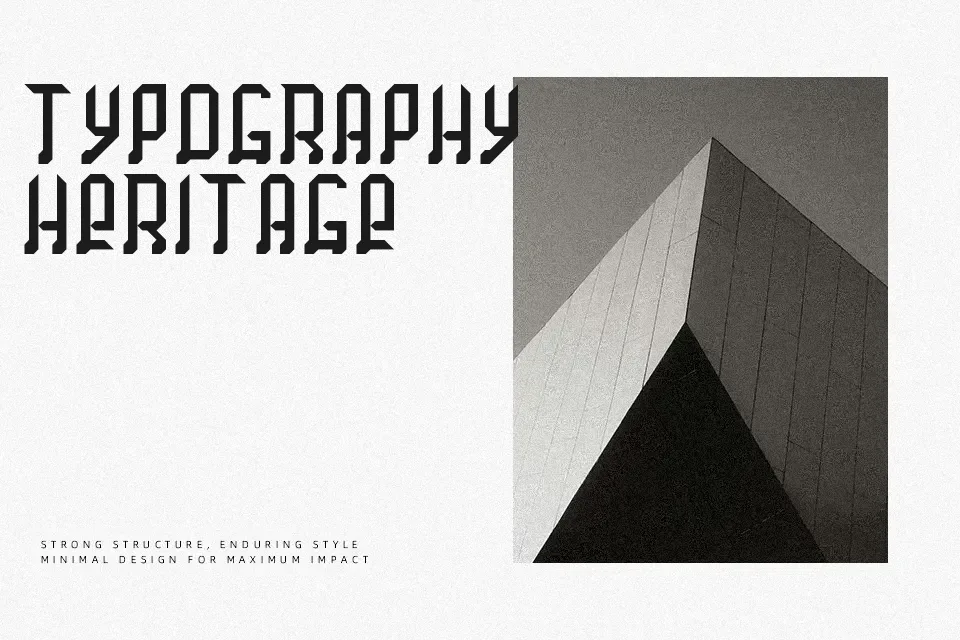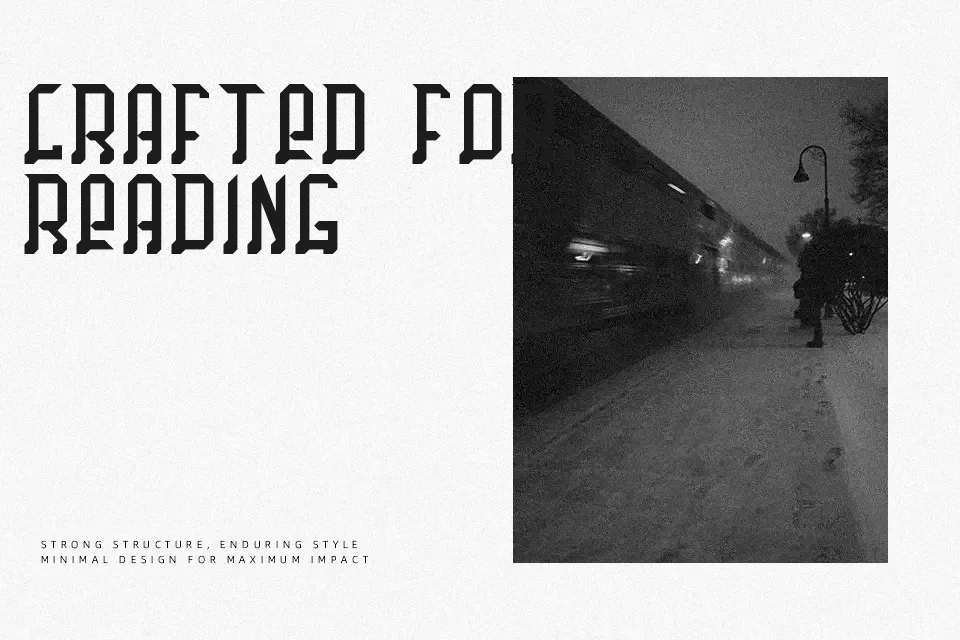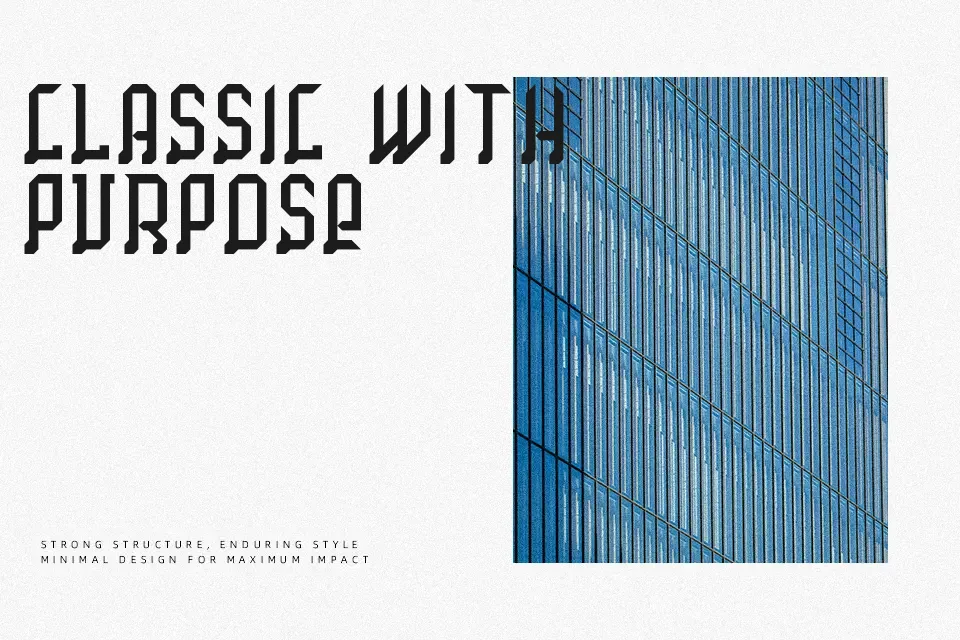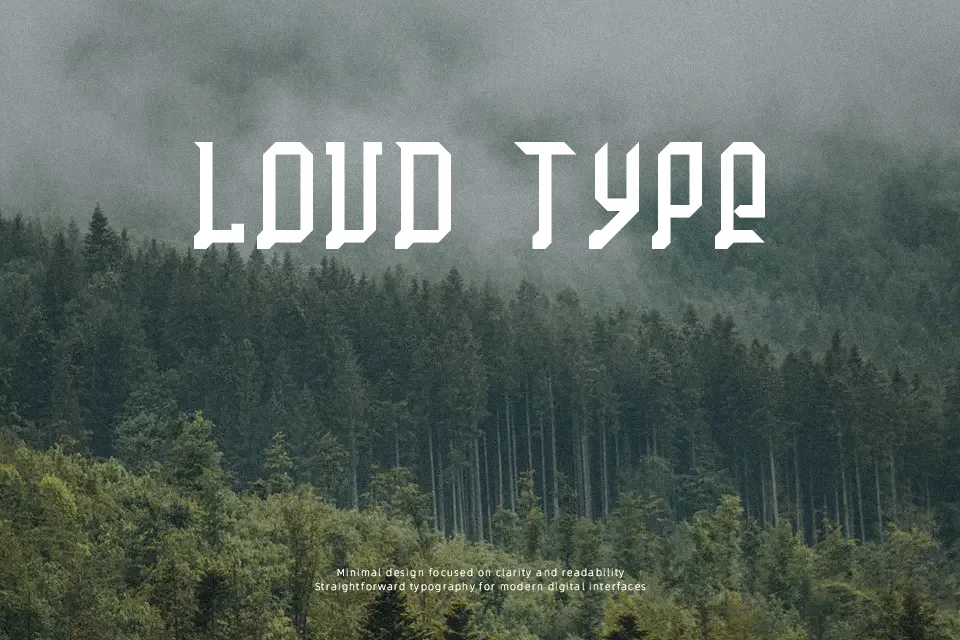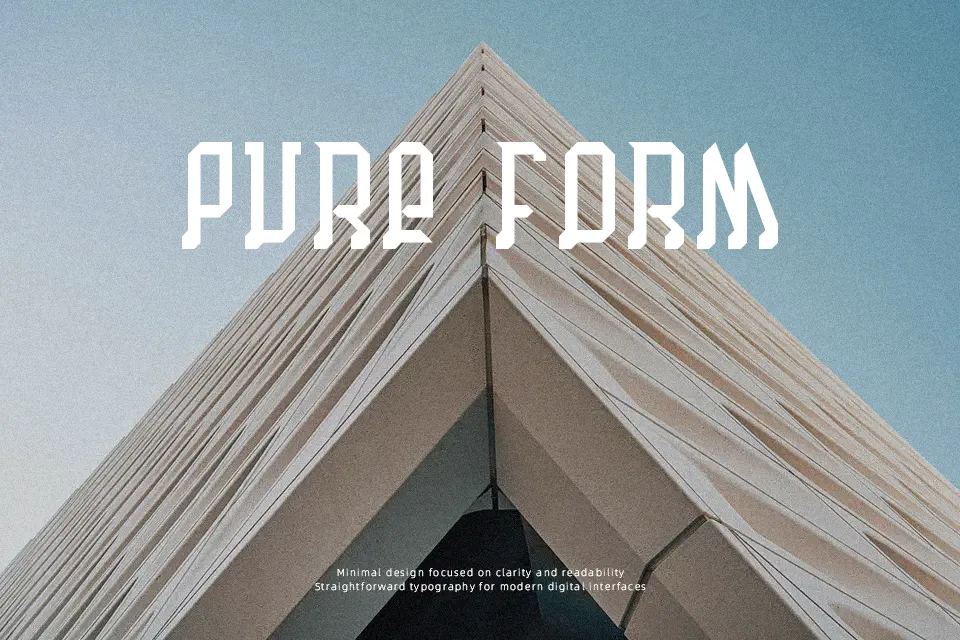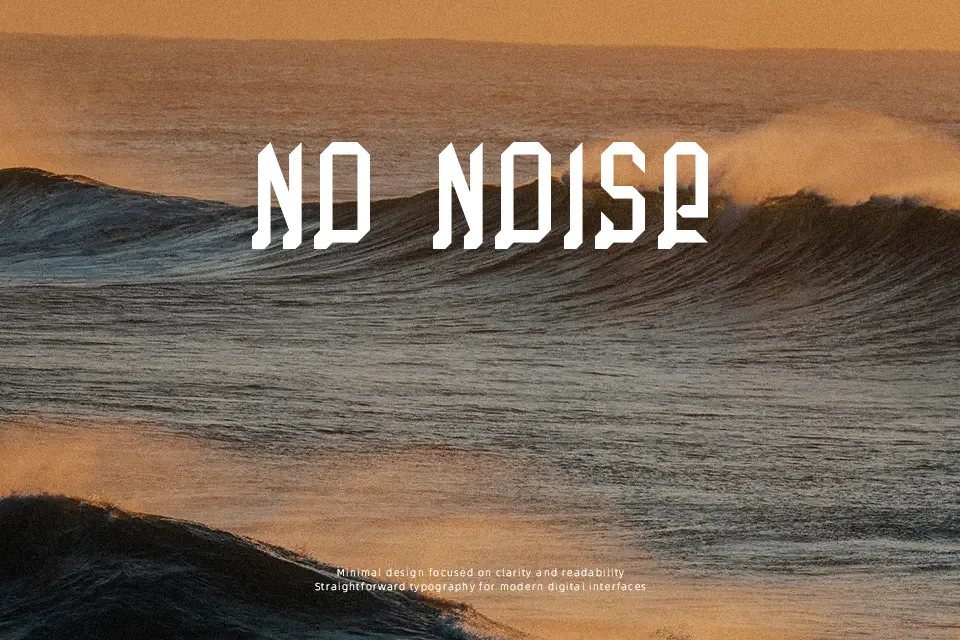
Chicago Font
Designed by Benj Funk
Chicago Font delivers an assertive modular structure built from heavy geometric strokes and sharp right-angled contours. Each character emphasizes uniform line weight and wide horizontal proportions, creating an unmistakable retro-digital aesthetic across uppercase and lowercase sets. Spacing remains tightly structured yet consistent enough to preserve distinct letterforms when scaled up. The typeface performs best when displayed at larger sizes where its bold architectural silhouettes command visual focus. However, the heavy density and rigid construction significantly reduce reading comfort in continuous body copy or small interface captions, making it less suitable for long editorial paragraphs.
Best For: music festival posters,video game title screens,streetwear apparel graphics,electronic album covers
Not Ideal For: continuous book paragraphs,mobile app body text,dense spreadsheet tables,formal legal documents
Perfect for gaming, headline, and logo, with a bold and decorative style.